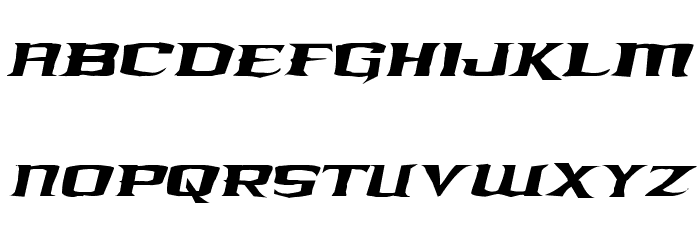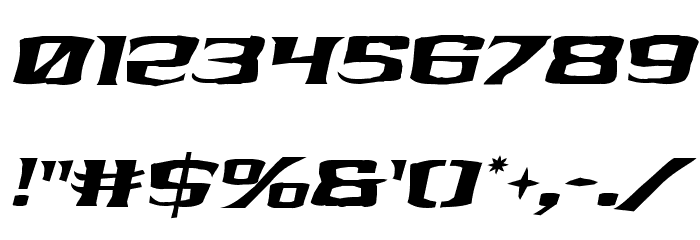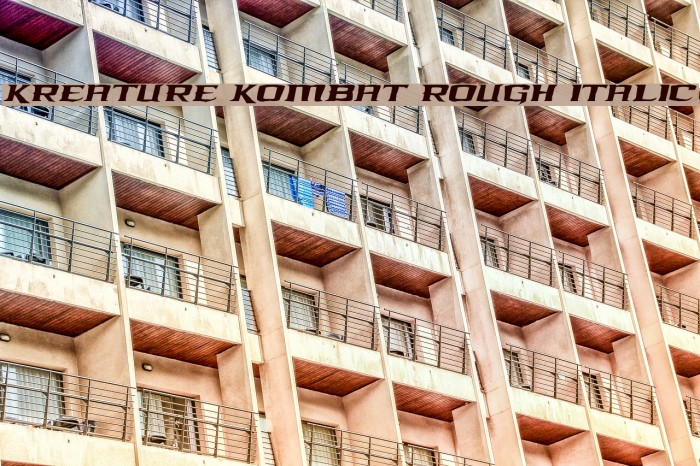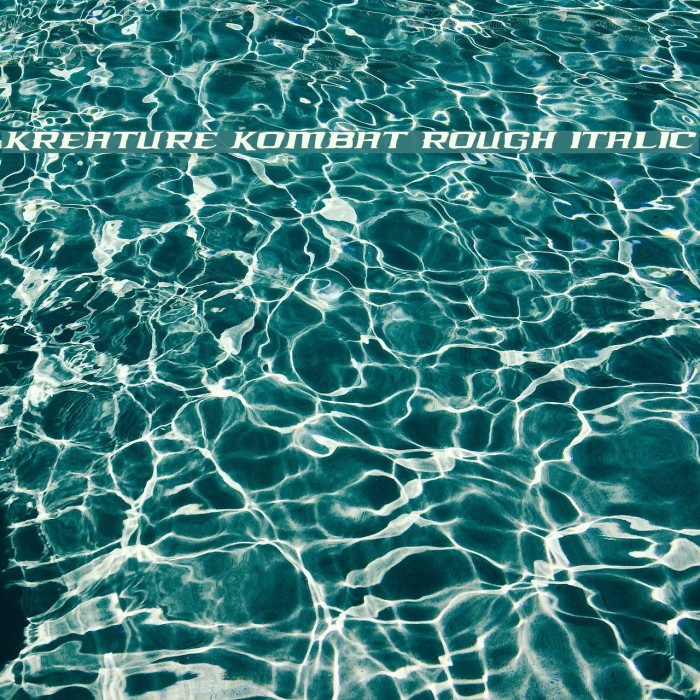
Kreature Kombat Rough Italic Font
This font features a bold and dynamic style with sharp, angular edges that give it a fierce and aggressive appearance. The italicized slant adds a sense of motion and energy, making it ideal for projects that require a strong visual impact. The characters are well-defined with a rough texture that enhances its rugged and adventurous feel. This font is perfect for creating eye-catching headlines, posters, and branding materials that need to convey strength and intensity.
A bold, angular, and italicized font with a rough texture for dynamic impact.
- Font: Kreature Kombat Rough Italic
- Proposed Projects: Ideal for sports branding, action movie posters, video game titles, and edgy apparel designs.